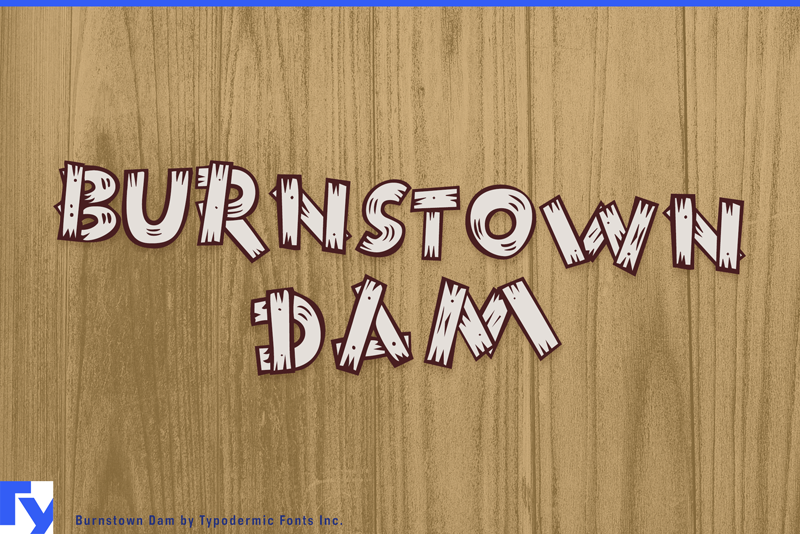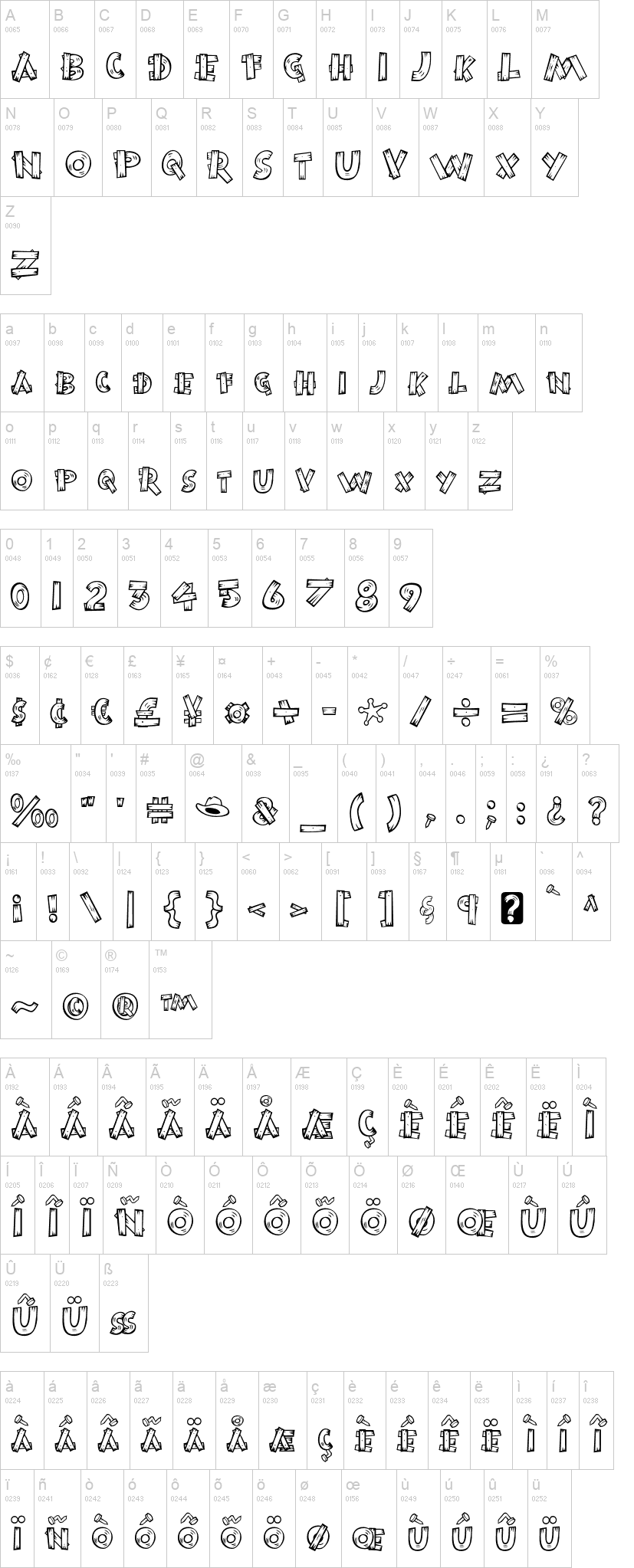
Burnstown Dam Back.otfBurnstown Dam Front.otfBurnstown Dam Nails.otfNote of the authorBurnstown Dam is a small cap typeface from the country. This rustic typeface is perfect for moonshine labels, hillbilly weddings, and corn roasts. Burnstown Dam is the solution to all of your archetypal cowboy design problems. Most Latin-based European writing systems are supported, including the following languages. Afaan Oromo, Afar, Afrikaans, Albanian, Alsatian, Aromanian, Aymara, Bashkir (Latin), Basque, Belarusian (Latin), Bemba, Bikol, Bosnian, Breton, Cape Verdean, Creole, Catalan, Cebuano, Chamorro, Chavacano, Chichewa, Crimean Tatar (Latin), Croatian, Czech, Danish, Dawan, Dholuo, Dutch, English, Estonian, Faroese, Fijian, Filipino, Finnish, French, Frisian, Friulian, Gagauz (Latin), Galician, Ganda, Genoese, German, Greenlandic, Guadeloupean Creole, Haitian Creole, Hawaiian, Hiligaynon, Hungarian, Icelandic, Ilocano, Indonesian, Irish, Italian, Jamaican, Kaqchikel, Karakalpak (Latin), Kashubian, Kikongo, Kinyarwanda, Kirundi, Kurdish (Latin), Latvian, Lithuanian, Lombard, Low Saxon, Luxembourgish, Maasai, Makhuwa, Malay, Maltese, Māori, Moldovan, Montenegrin, Ndebele, Neapolitan, Norwegian, Novial, Occitan, Ossetian (Latin), Papiamento, Piedmontese, Polish, Portuguese, Quechua, Rarotongan, Romanian, Romansh, Sami, Sango, Saramaccan, Sardinian, Scottish Gaelic, Serbian (Latin), Shona, Sicilian, Silesian, Slovak, Slovenian, Somali, Sorbian, Sotho, Spanish, Swahili, Swazi, Swedish, Tagalog, Tahitian, Tetum, Tongan, Tshiluba, Tsonga, Tswana, Tumbuka, Turkish, Turkmen (Latin), Tuvaluan, Uzbek (Latin), Venetian, Vepsian, Võro, Walloon, Waray-Waray, Wayuu, Welsh, Wolof, Xhosa, Yapese, Zapotec Zulu and Zuni.